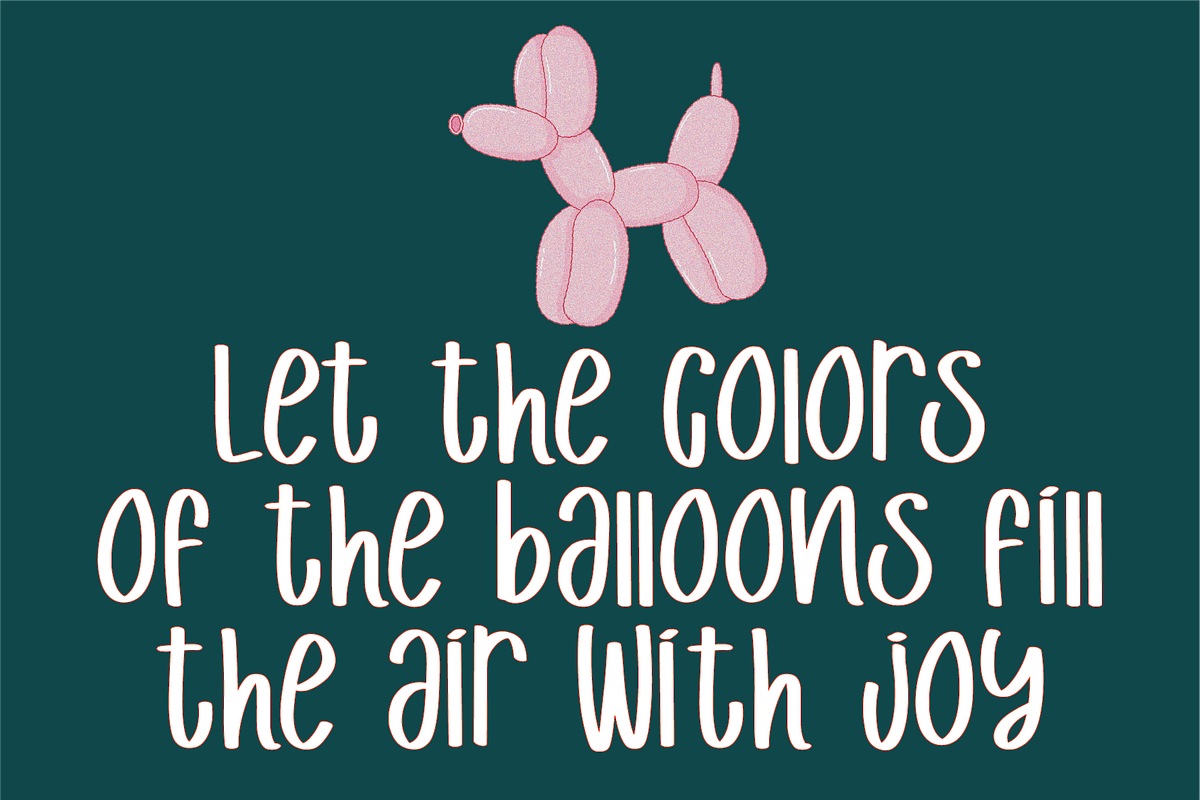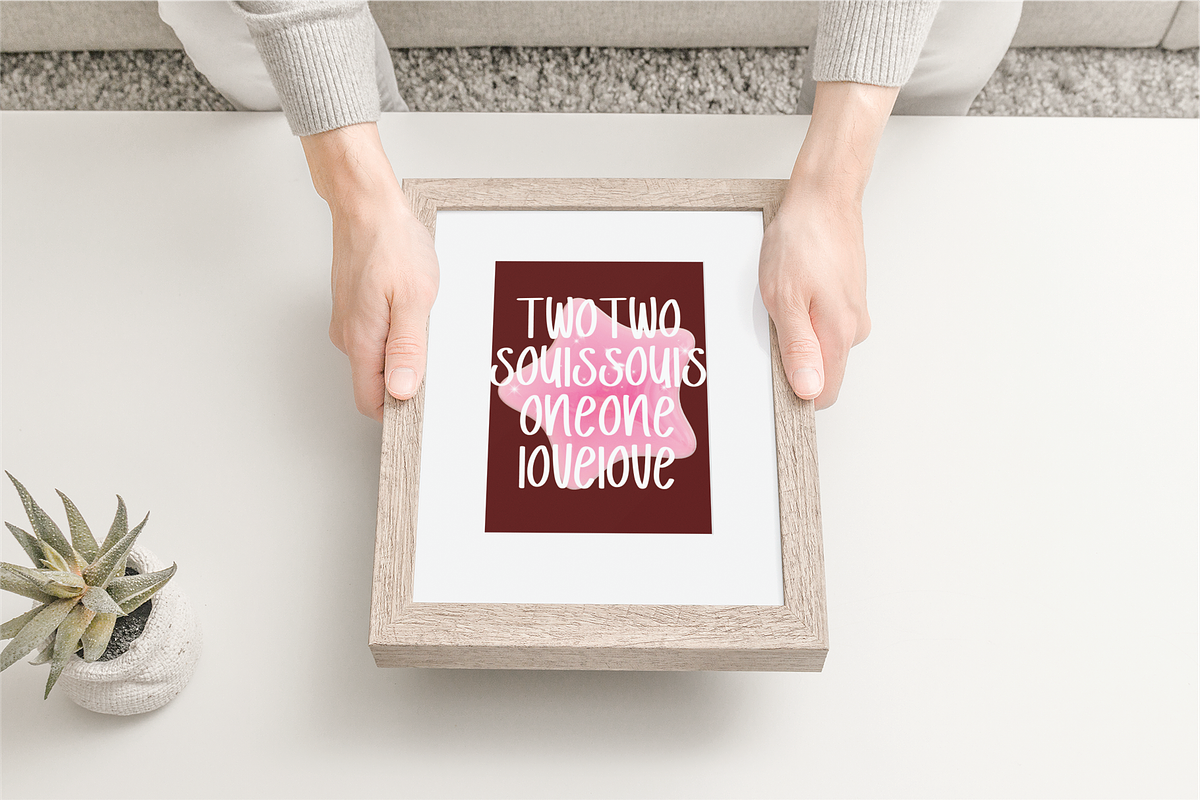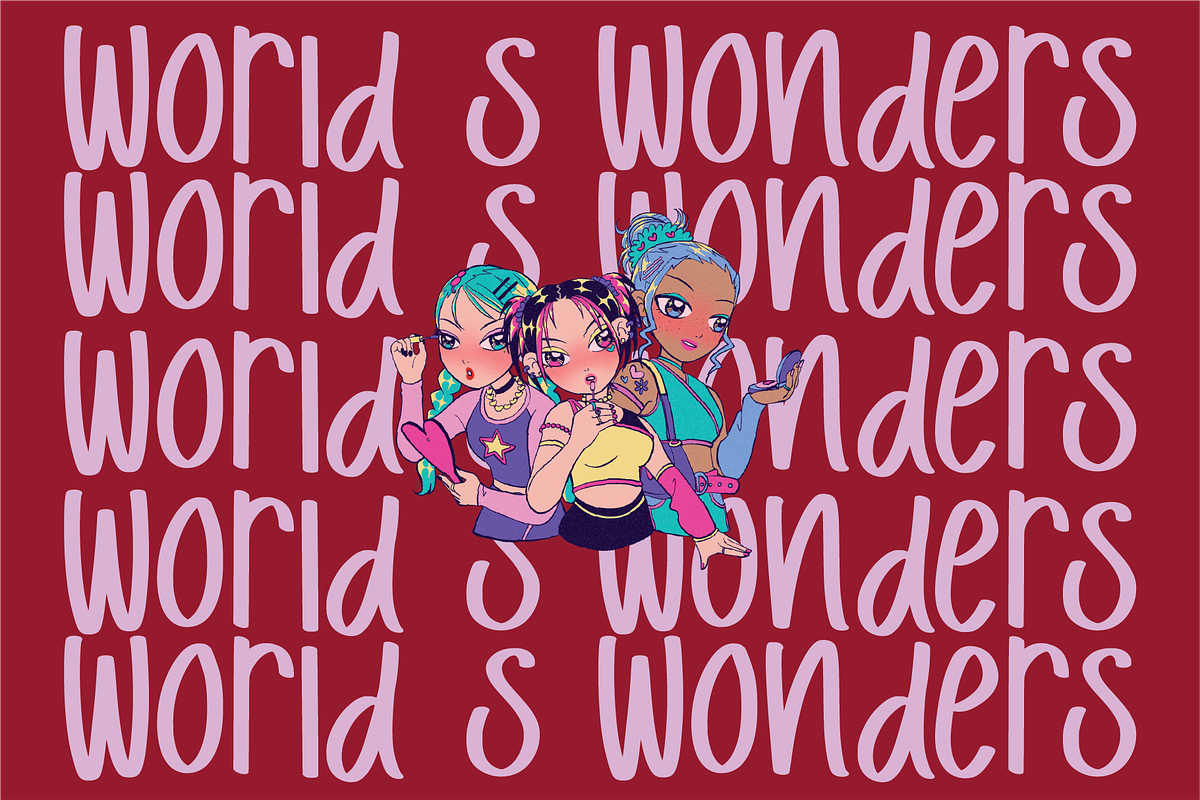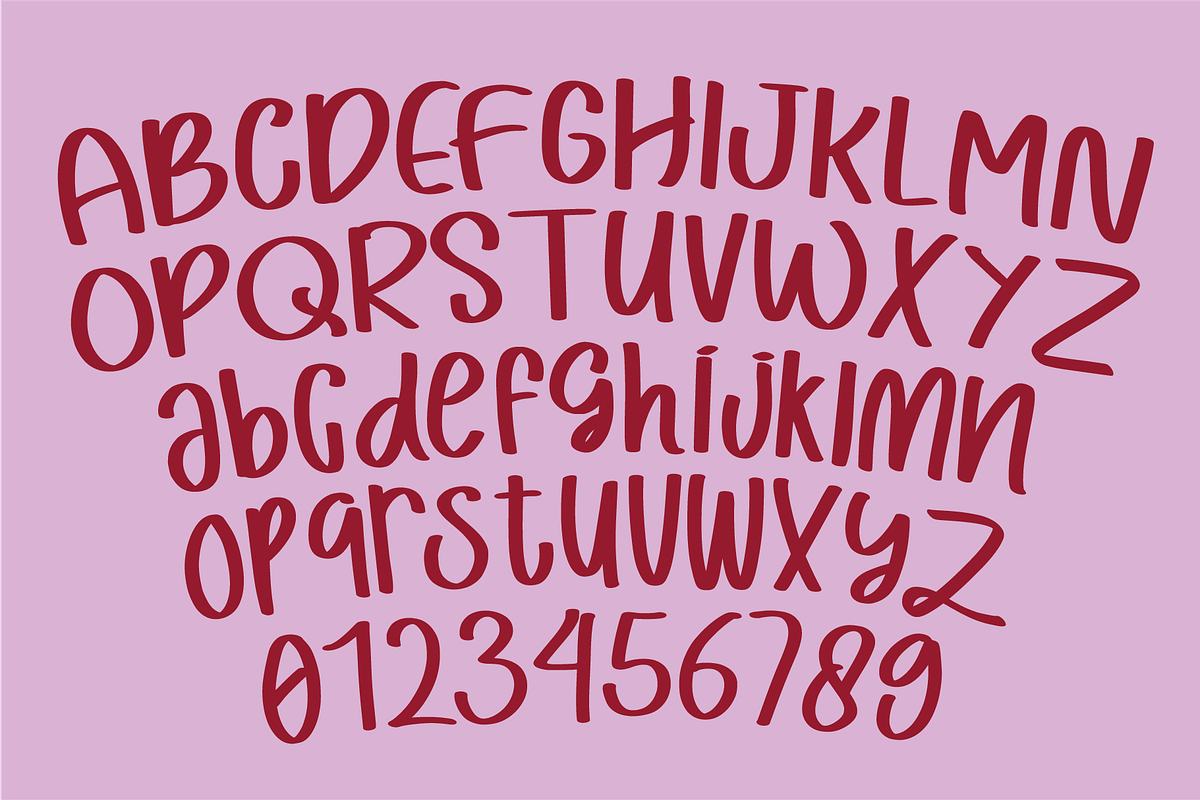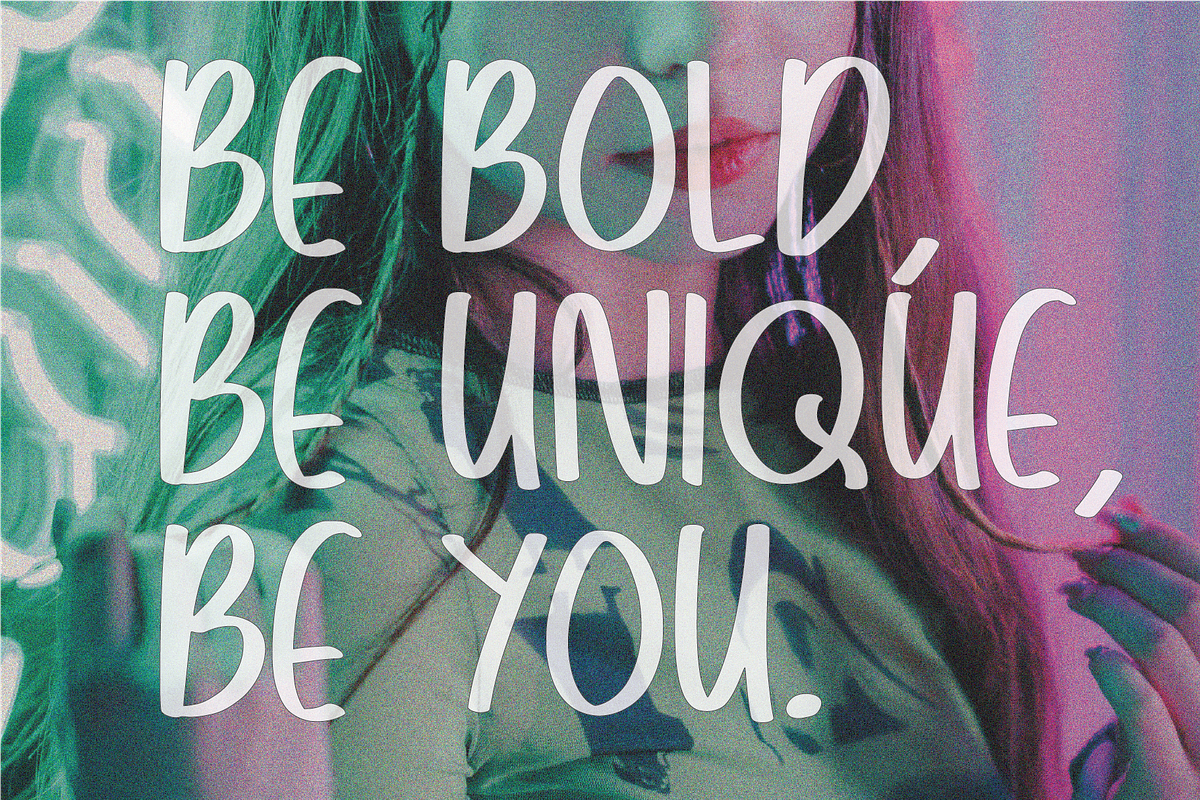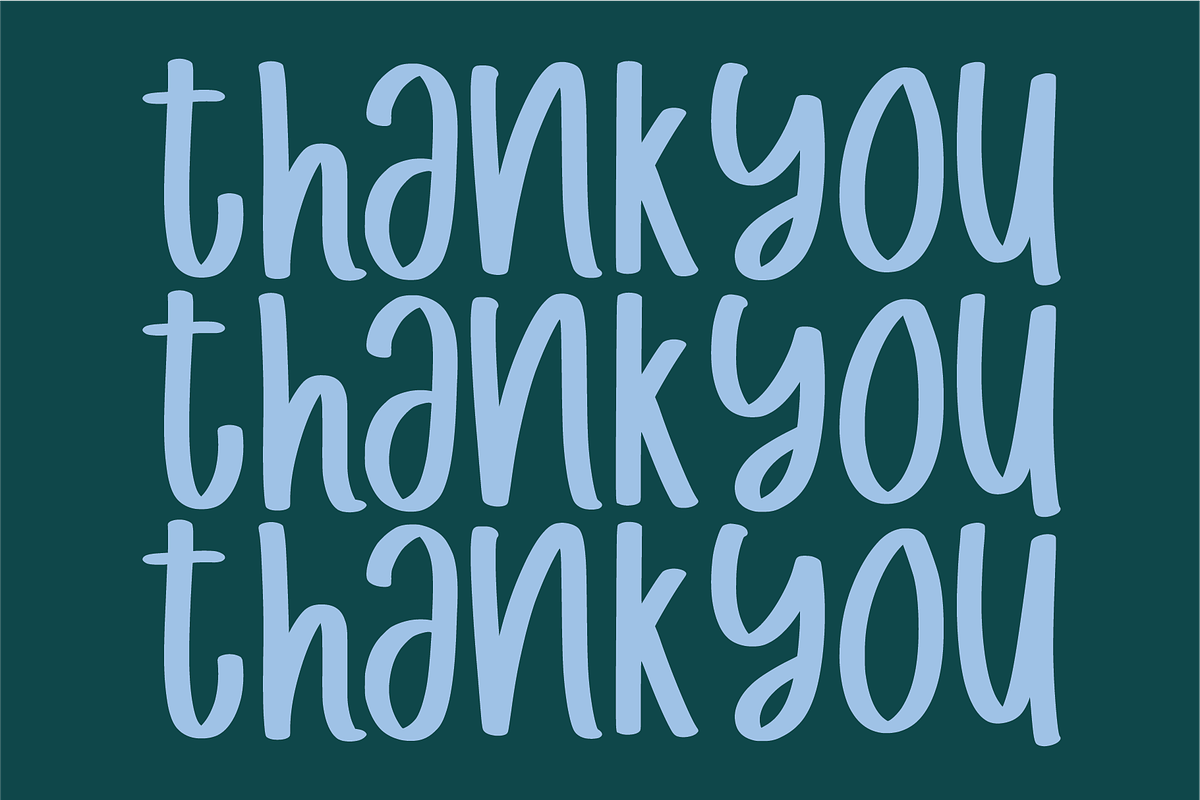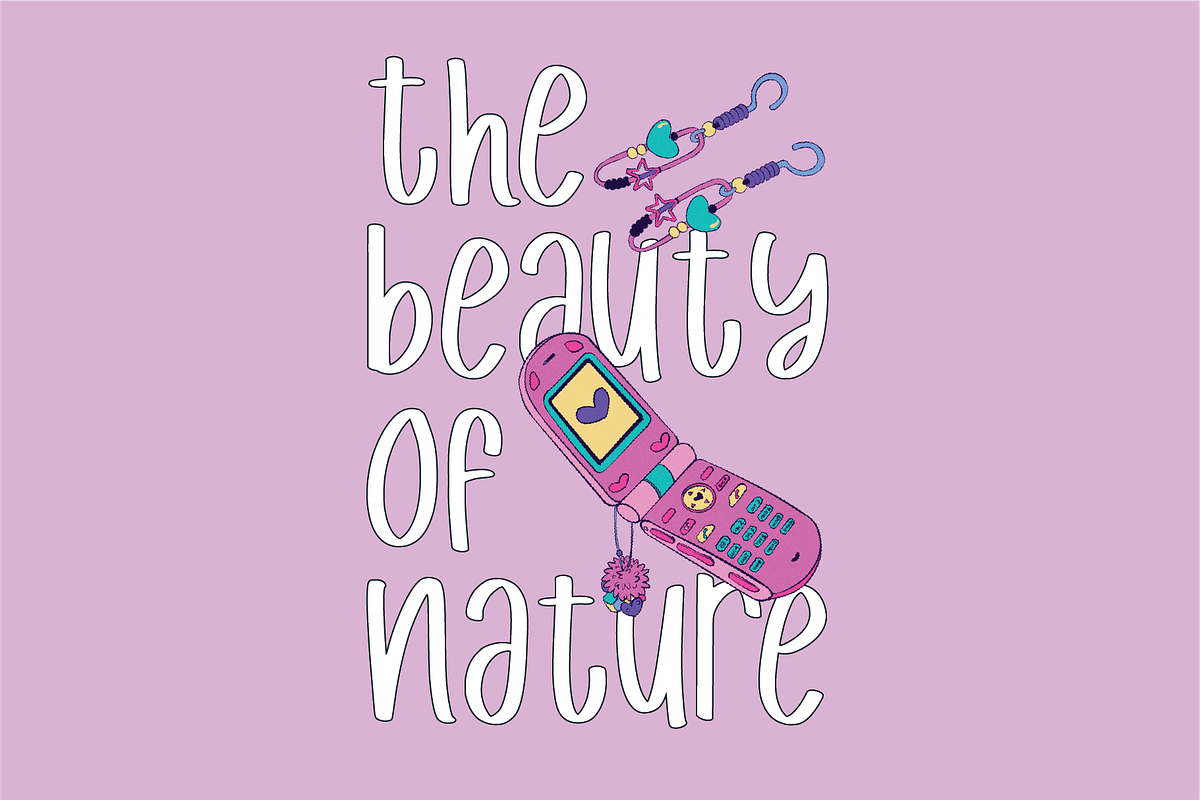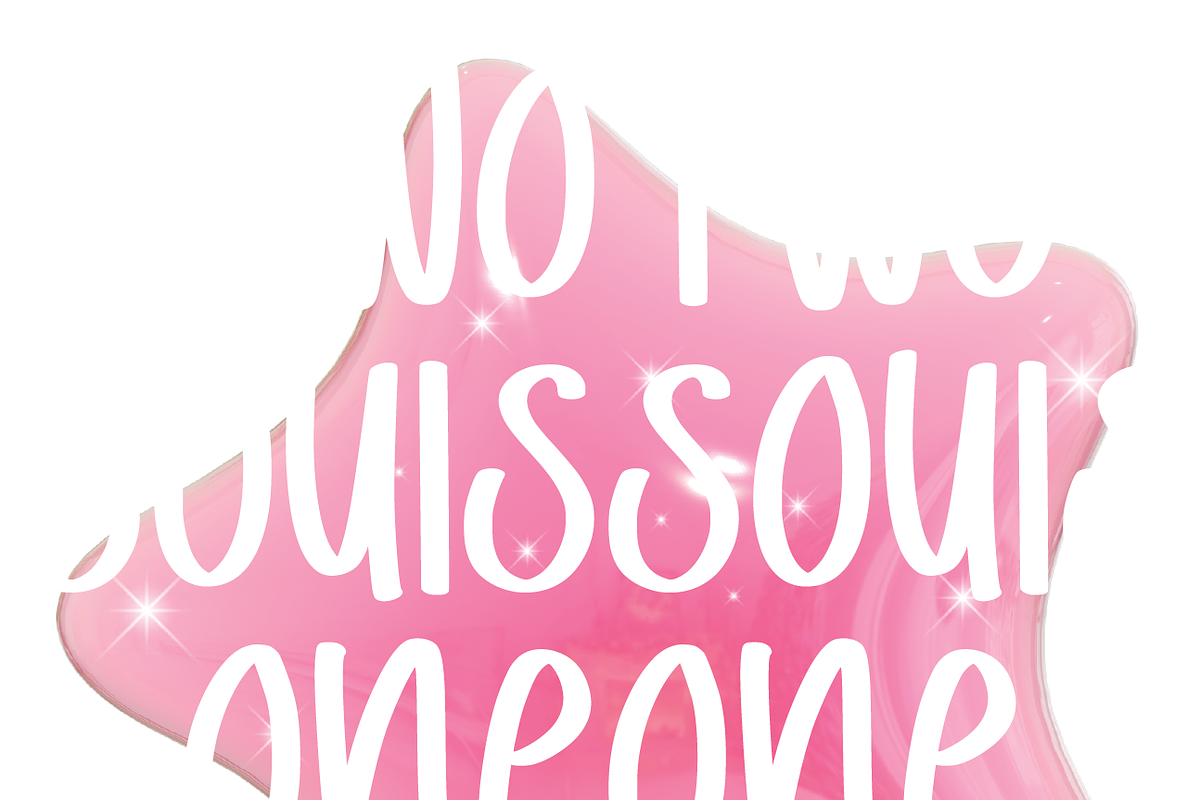
Bluetafy Playful Font
Bluetafy is a playful handwritten display font with soft, rounded strokes and a friendly, cheerful personality. Its letters are slightly bouncy, giving the text a fun, youthful, and welcoming feel.